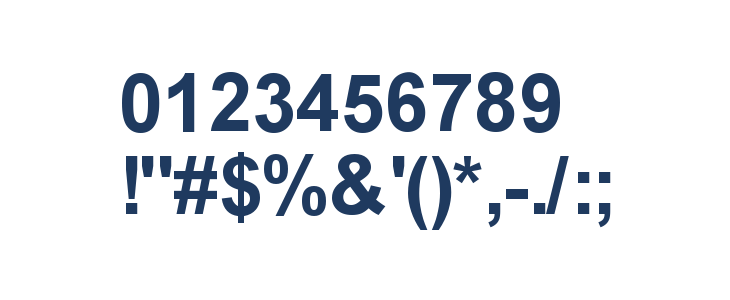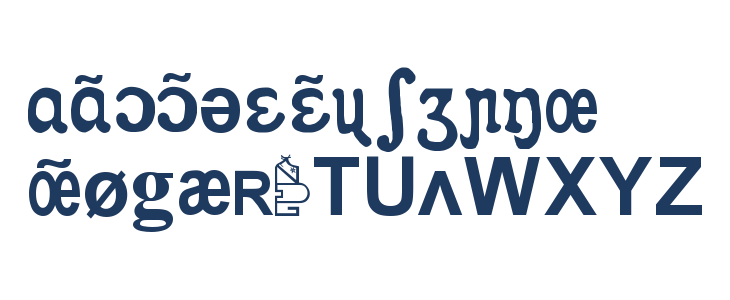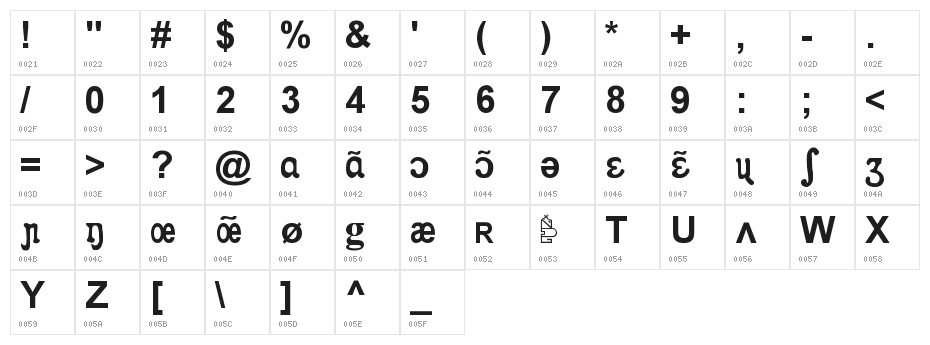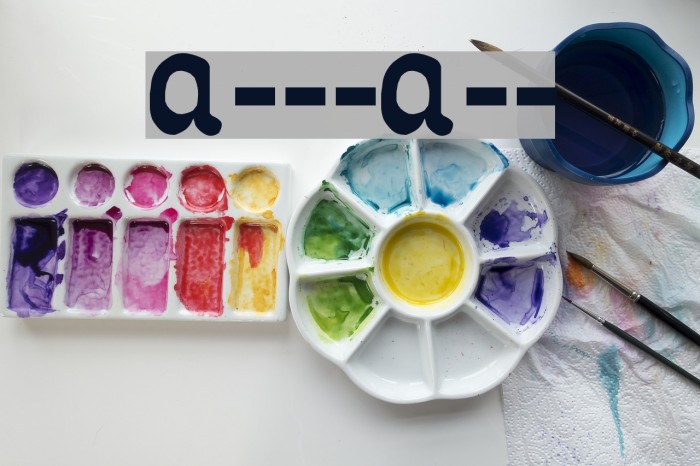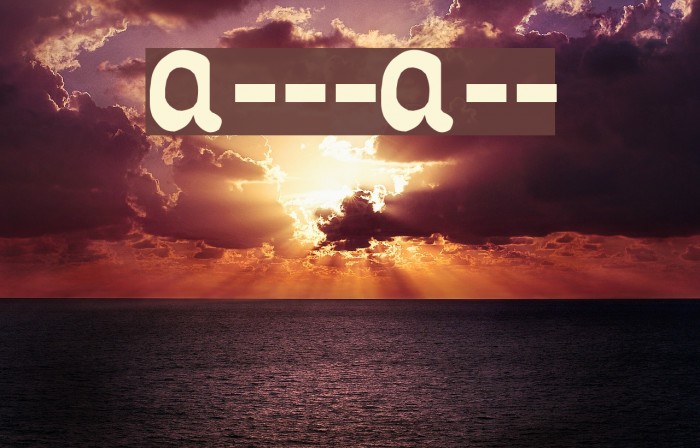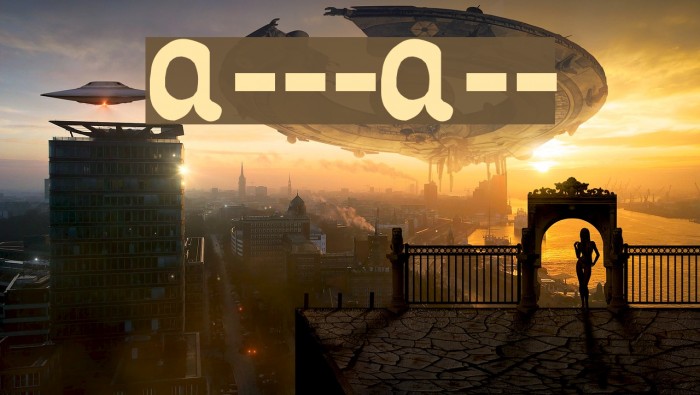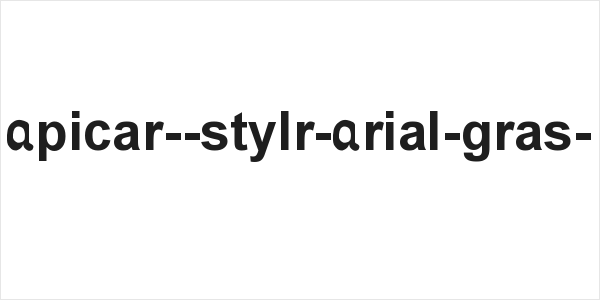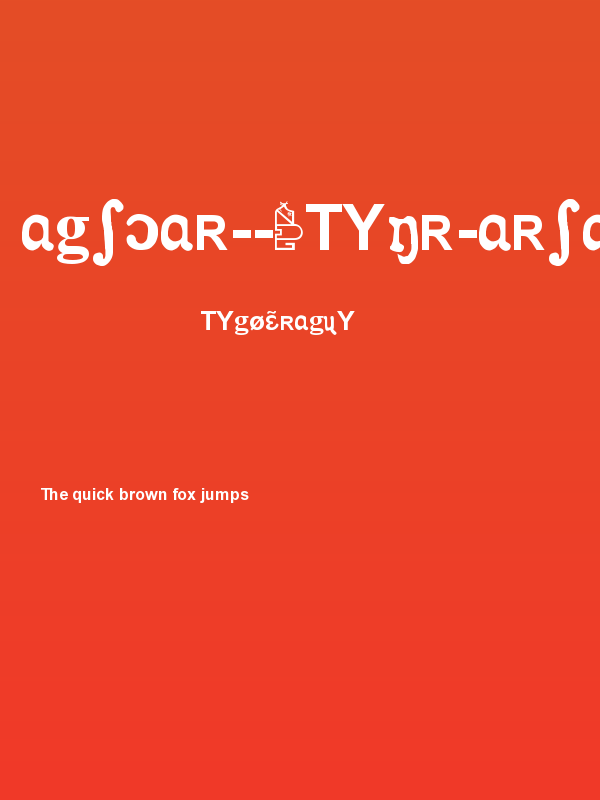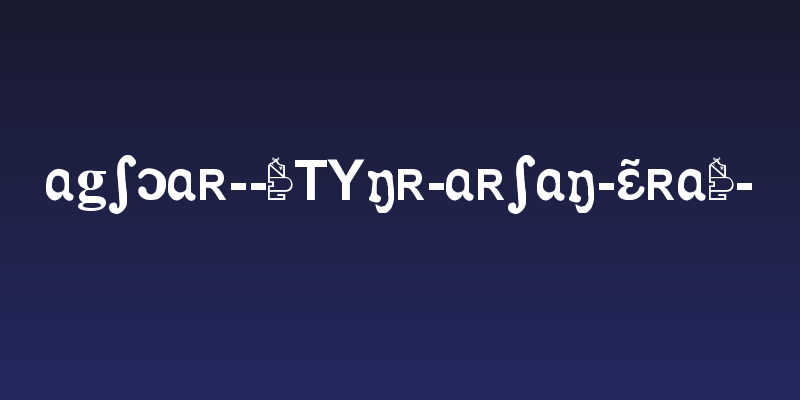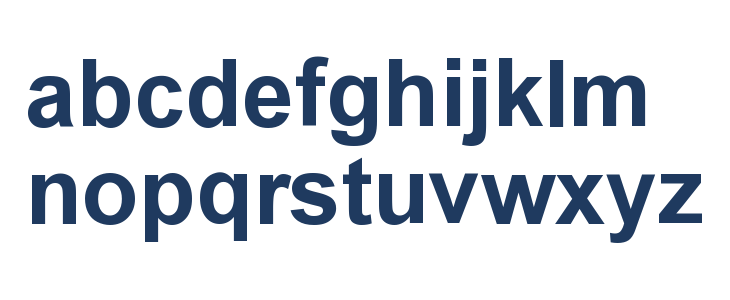
Apicar--stylr-Arial-gras- Font
Apicar--stylr-Arial-gras- Description
This font is a bold, sans-serif typeface characterized by its clean and modern appearance. The letters are evenly weighted, providing a strong and assertive look. The uppercase and lowercase letters are well-proportioned, with a consistent stroke width that enhances readability. The numerals are clear and distinct, making them suitable for various applications. Special characters are included, maintaining the font's cohesive style. The overall design is versatile, suitable for both digital and print media.
| Use Case | Headlines, Logos, Digital content |
| Proposed Projects | Ideal for branding, headlines, posters, and digital content where a strong, modern presence is desired. |